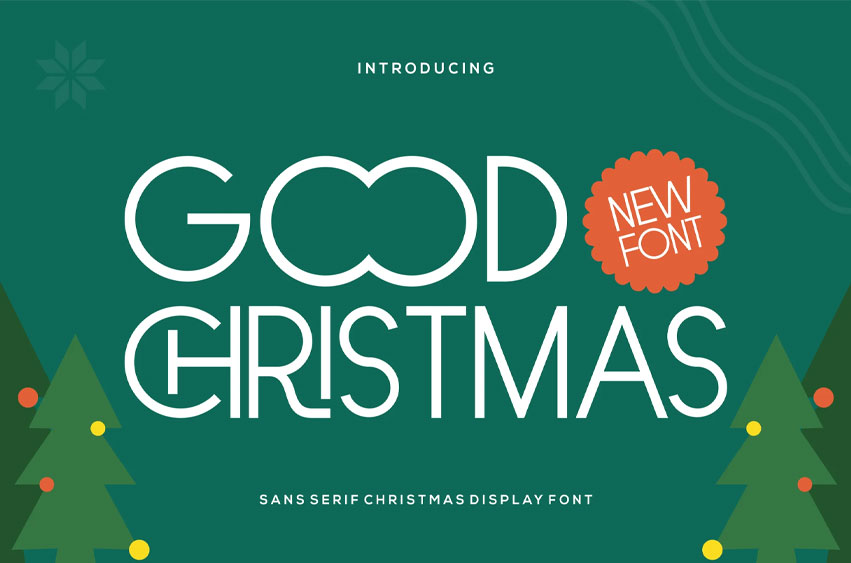
Good Christmas Font Modern Font is a regular and authentic display font. The font is suitable for any branding project, like logos, esport, and many more. outstanding in a wide range of contexts.